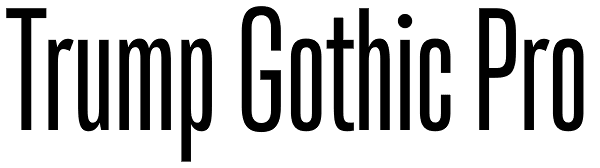
Trump Gothic Pro
Trump Gothic is a reconception of ideas from Georg Trump's seminal 1955 Signum typeface and its later reworking (Kamene) by Czech designer Stanislav Marso. Originally cobbled together for a variety of film projects in the late 1990s and early 2000s...